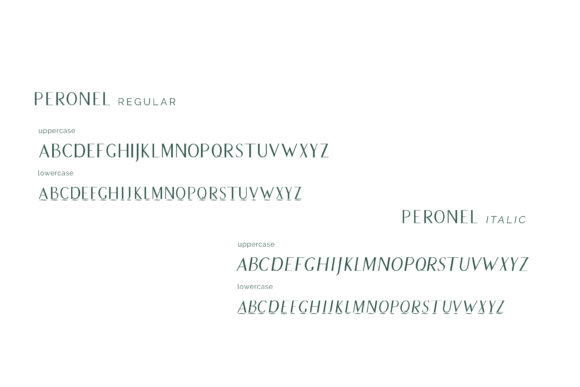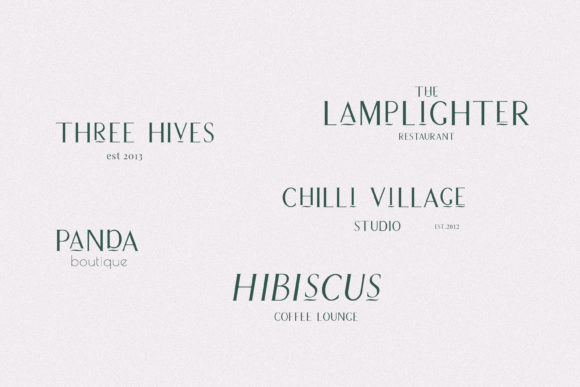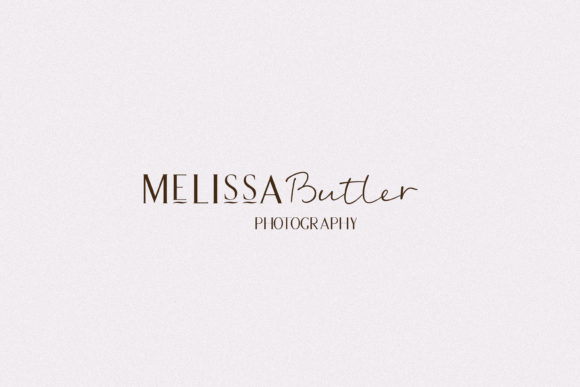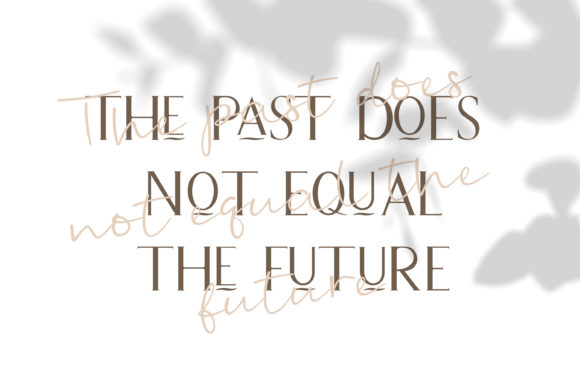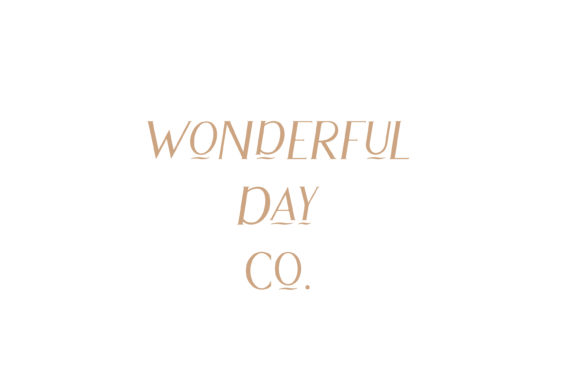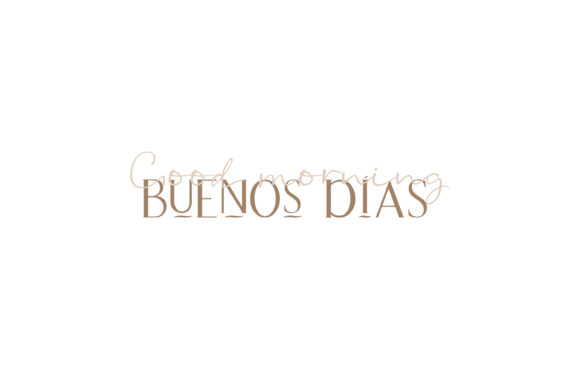
Introduction to Peronel Font
Have you ever been working on a creative project, pouring your heart and soul into it, and suddenly, you can’t quite put your finger on what’s missing? You’ve got the perfect concept, the right colors, and the ideal message, but something just doesn’t pop. That’s when the perfect design resource can make all the difference. For many designers, that resource is the stunning Peronel Font.
With its bold and elegant charm, Peronel Font has the power to elevate any design idea and make it stand out. Whether you’re working on a branding project, a website, or a social media campaign, this high-quality font is sure to add a touch of sophistication and class. And the best part? It’s available for free download, complete with a transparent background, making it easy to integrate into your design.
Key Features of Peronel Font
- High-quality, professional font suitable for creative projects and designs
- Includes a comprehensive character set, covering Latin and Cyrillic alphabets, with over 1000 glyphs
- Supports advanced typography features, including ligatures, swashes, and stylistic sets
Honest Review: Peronel Font
I recently came across the Peronel Font, a versatile design resource that has been gaining popularity among designers. As I delved deeper into its features, I was excited to explore its potential in my creative project.
- High-quality design: The Peronel Font boasts a clean and modern design that is perfect for a variety of creative projects.
- Limited language support: I noticed that the Peronel Font only supports a limited number of languages, which may be a drawback for international design projects.
- Not ideal for small text: While the font is perfect for headlines and titles, it may not be the best choice for small text due to its bold and modern design.
Overall, I’m impressed with the Peronel Font’s design quality and versatility. While it may have some limitations, it’s an excellent resource for designers looking for a high-quality font for their creative projects.
Peronel Font is a versatile design resource that can be used in a variety of creative projects, such as logo designs, social media graphics, and presentations. Its high-quality and transparent background make it perfect for creating visually appealing designs.
Compared to Peronel Font, Great Vibes Font has a more refined and delicate look, making it suitable for more formal designs. While Peronel Font is great for casual and playful projects, Great Vibes Font excels in creating a sense of luxury and elegance.